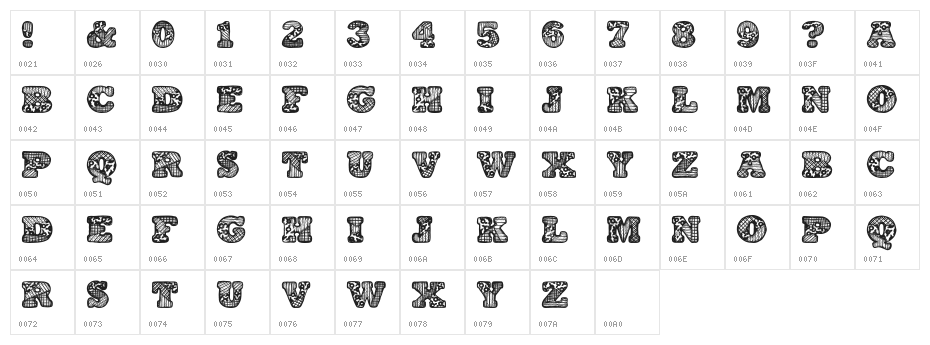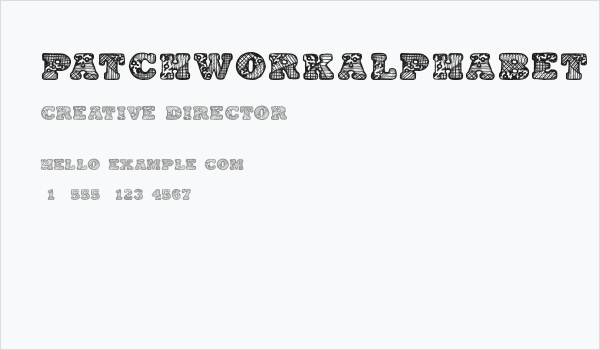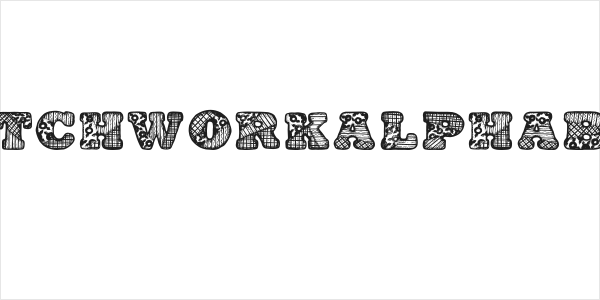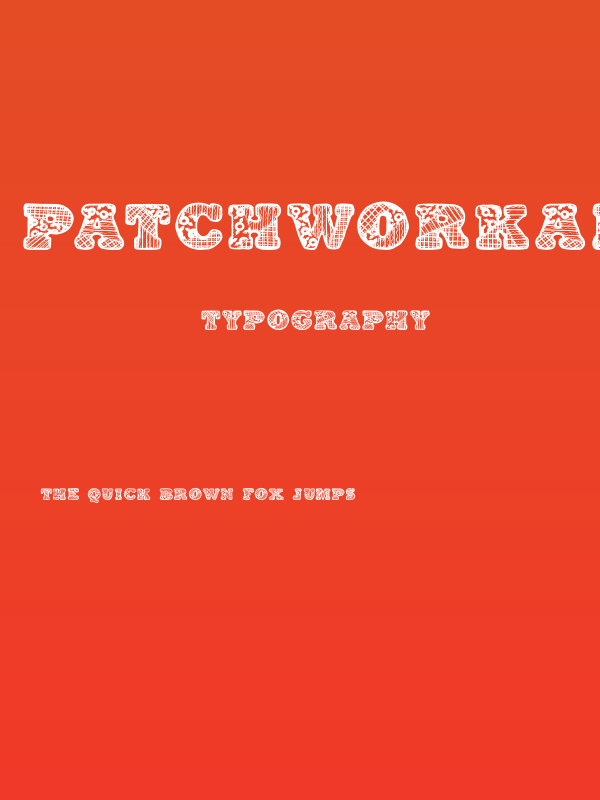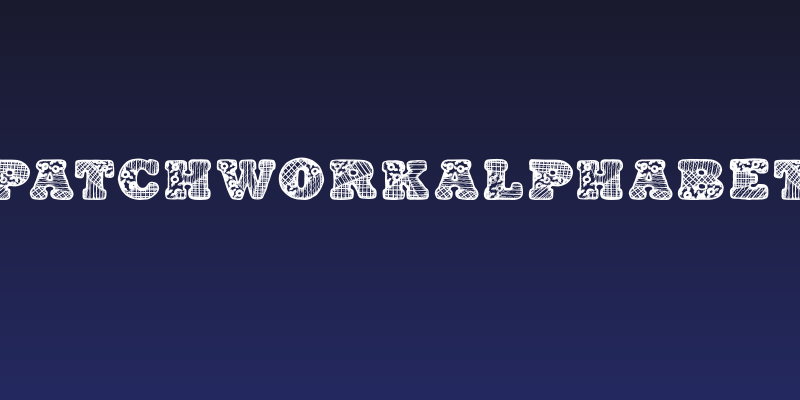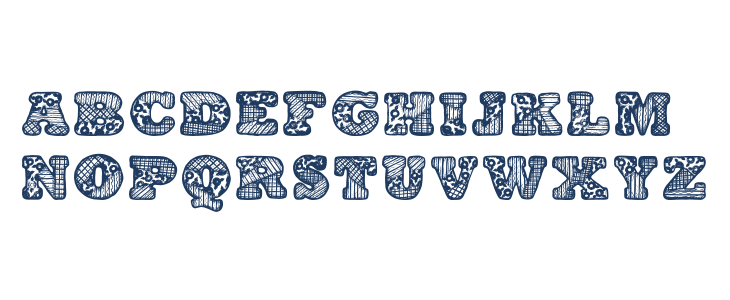
PatchworkAlphabet Font
PatchworkAlphabet Description
This font features a playful and artistic design, reminiscent of a patchwork quilt. Each character is filled with intricate patterns, including polka dots, stripes, and crosshatches, giving it a textured and handcrafted appearance. The bold outlines and varied internal designs create a visually striking effect, making it ideal for creative and whimsical projects. The font maintains a consistent structure across uppercase, lowercase, numbers, and special characters, ensuring readability while adding a unique flair. Its decorative nature makes it stand out, perfect for eye-catching headlines or artistic displays.
| Use Case | Headlines, Logos, Artistic Displays |
| Proposed Projects | Ideal for children's book covers, craft projects, playful branding, and artistic posters. |